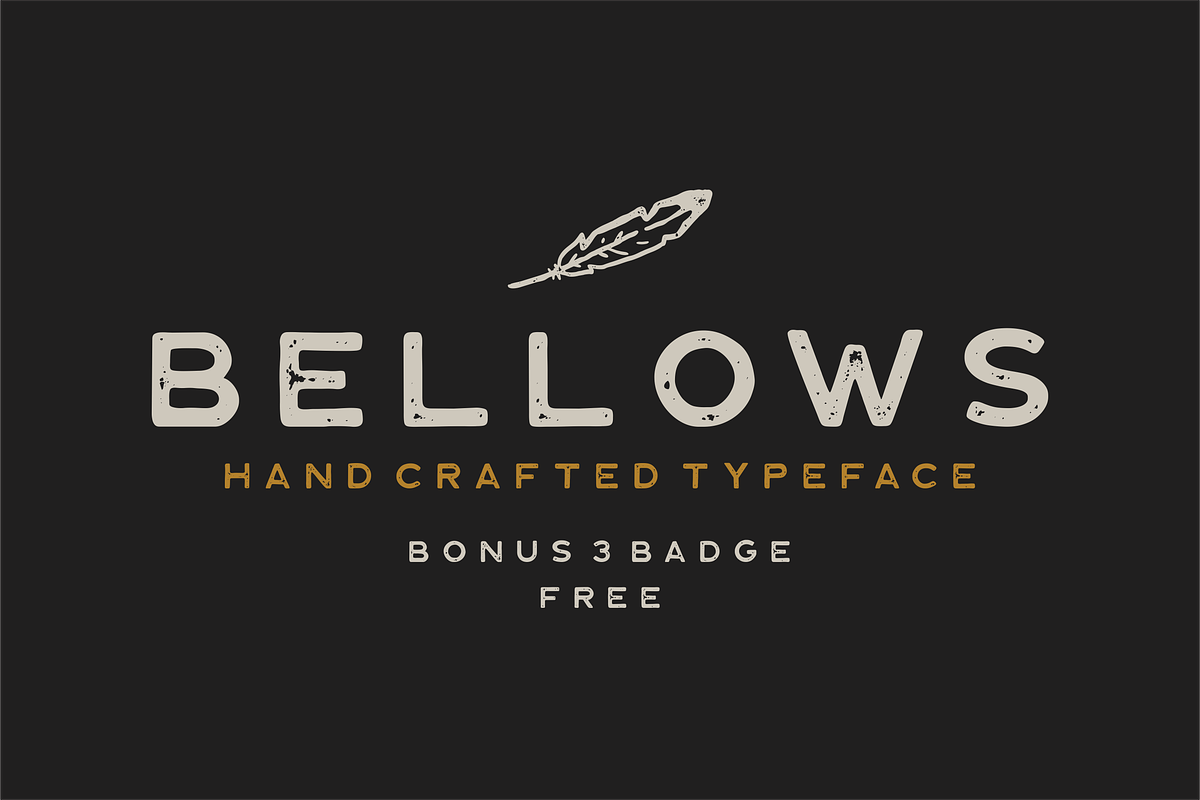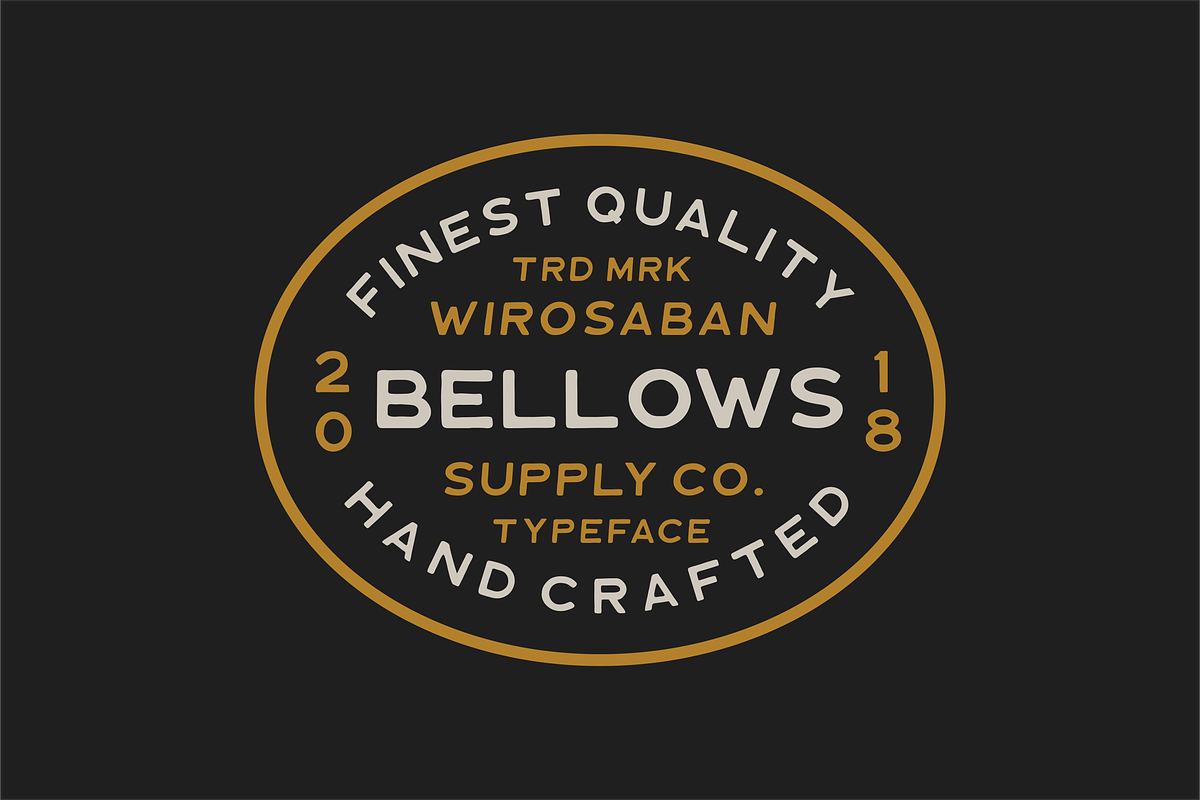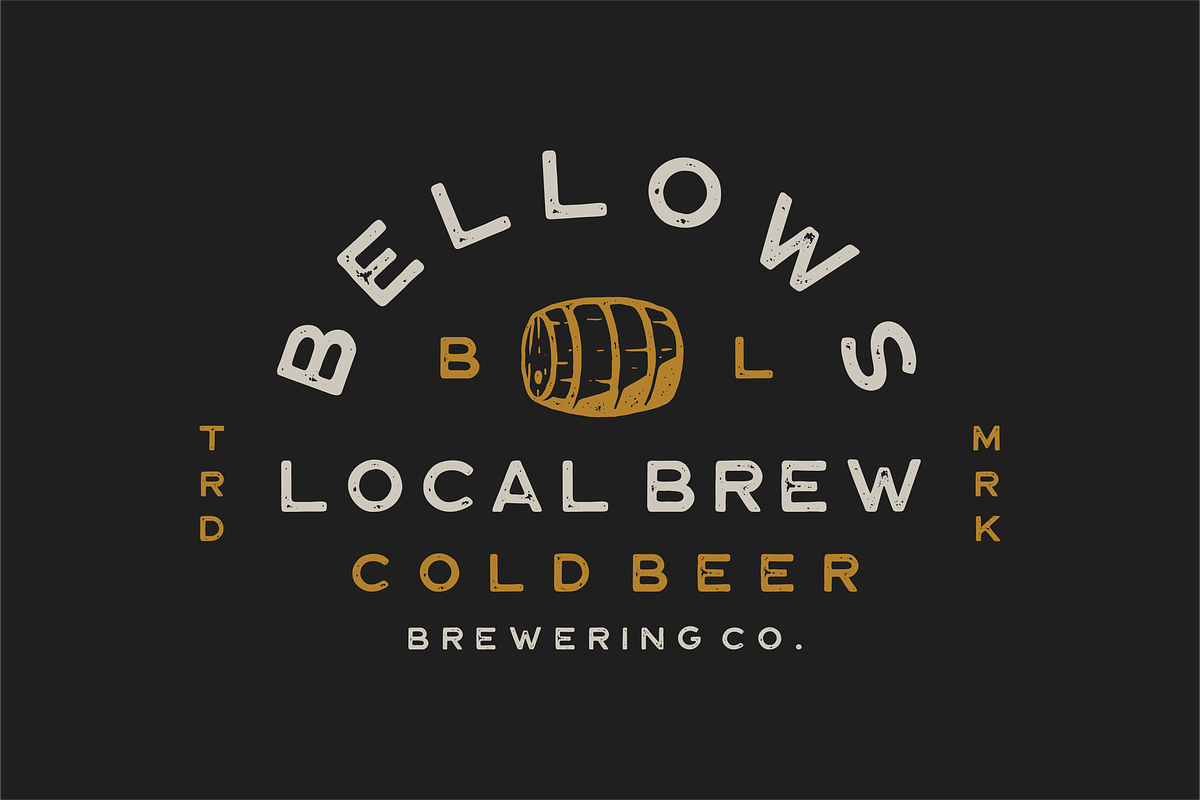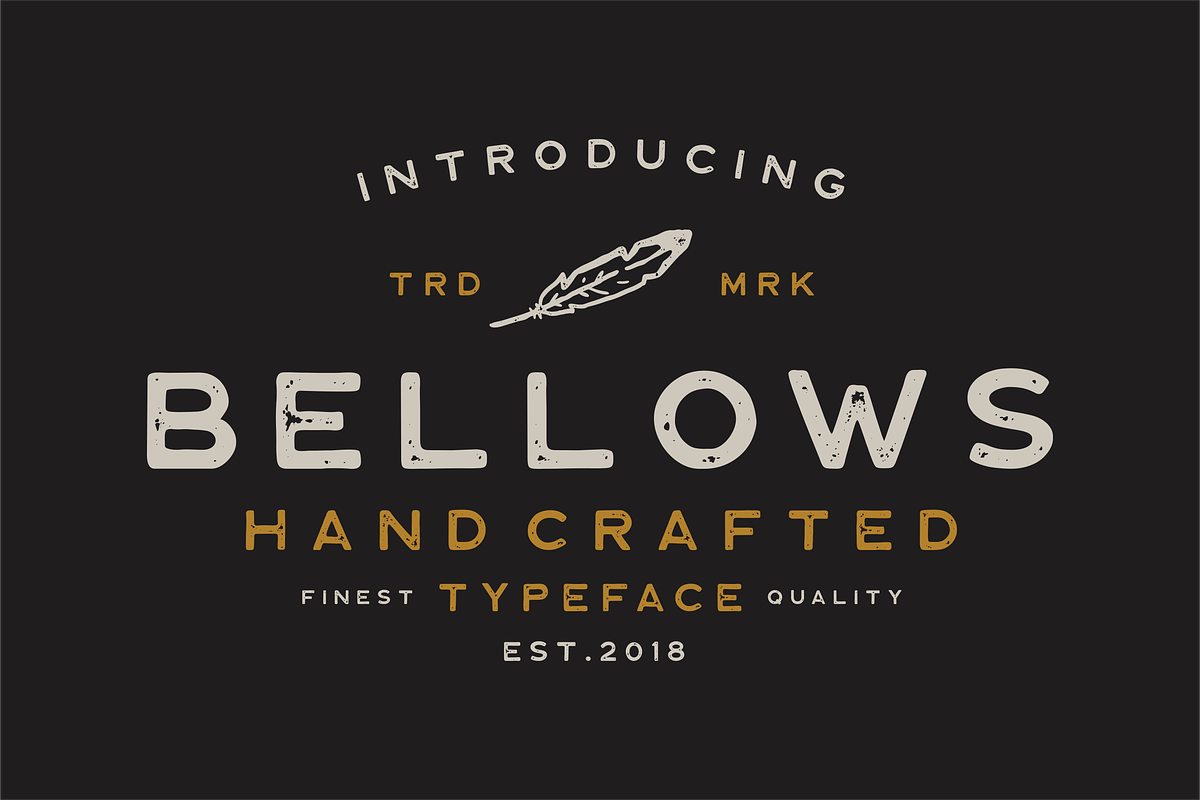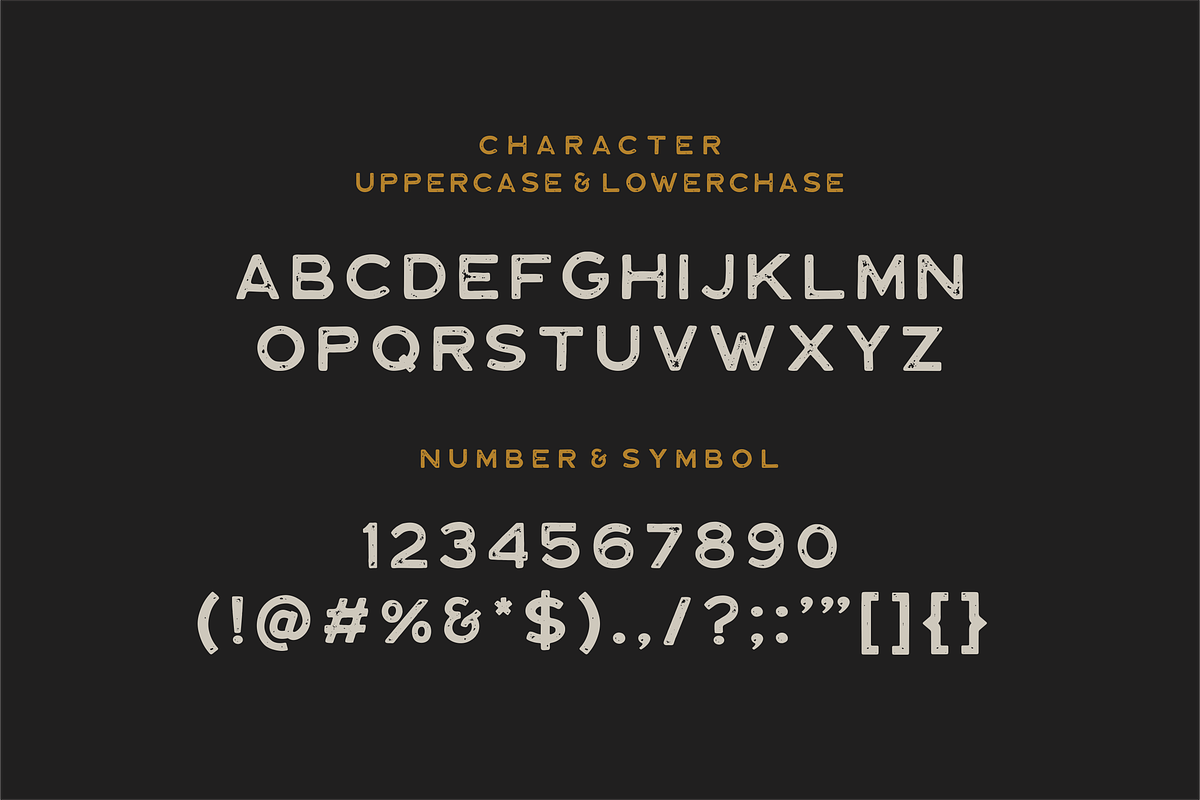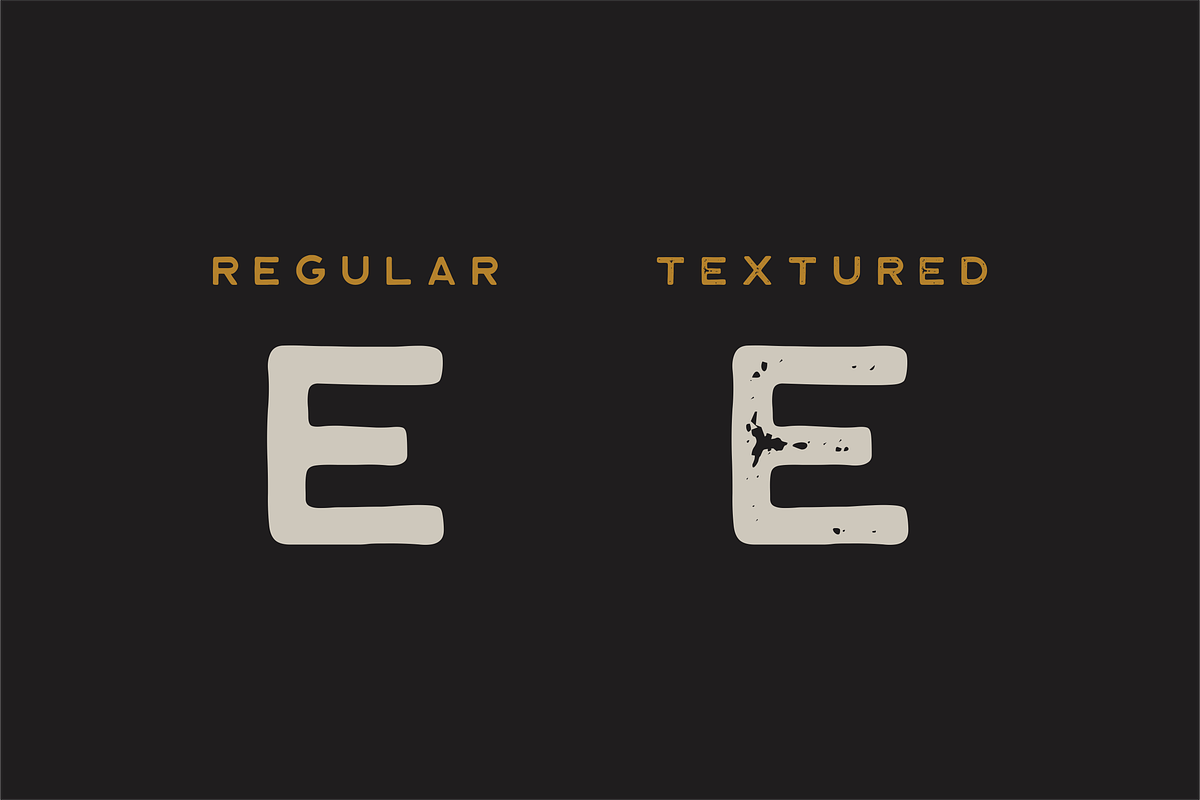
Bellows Typeface
BELLOWS was my first artificial typeface.two simple typeface that comes with a subtle vintage style. entirely done by hand with a very original. Comes with 2 styles, regular and textured. Very ready to make your projects more beautiful and simple.
- BELLOWS was my first artificial typeface.two simple typeface that comes with a subtle vintage style.
- Comes with 2 styles, regular and textured.
- BELLOWS was my first artificial typeface.two simple typeface that comes with a subtle vintage style.
- Comes with 2 styles, regular and textured.